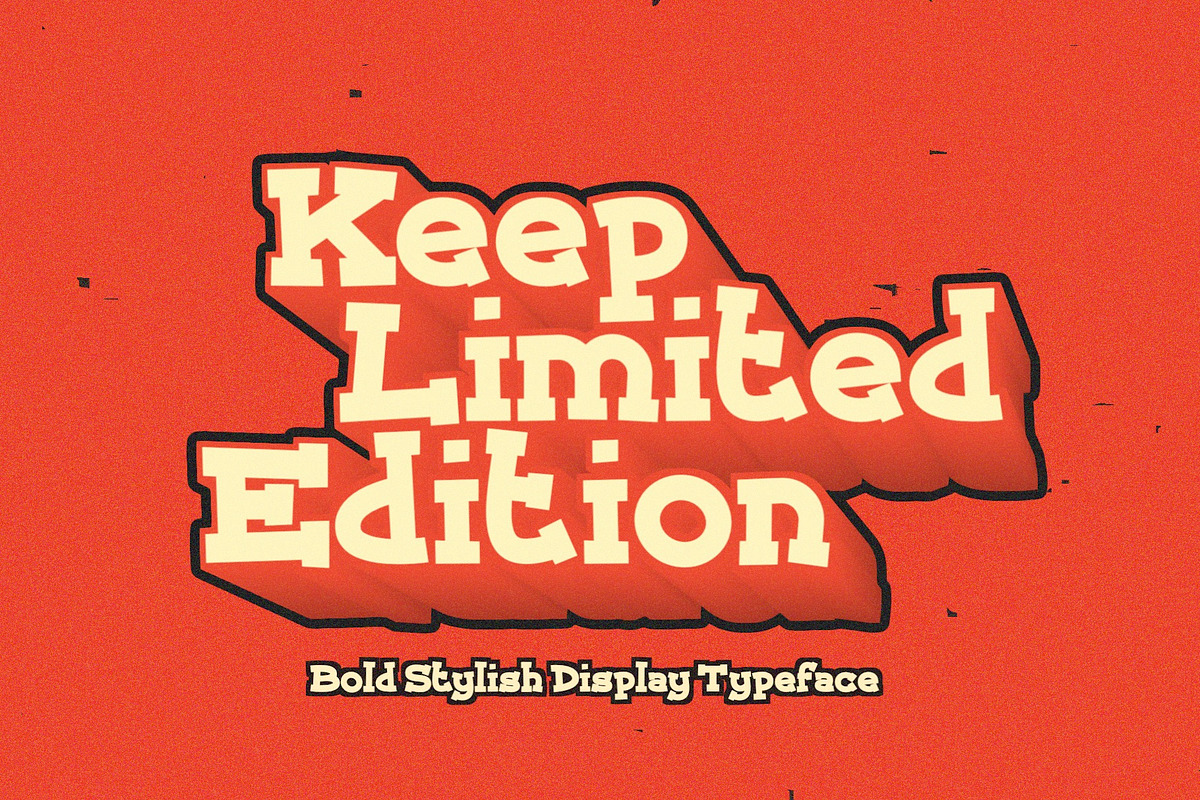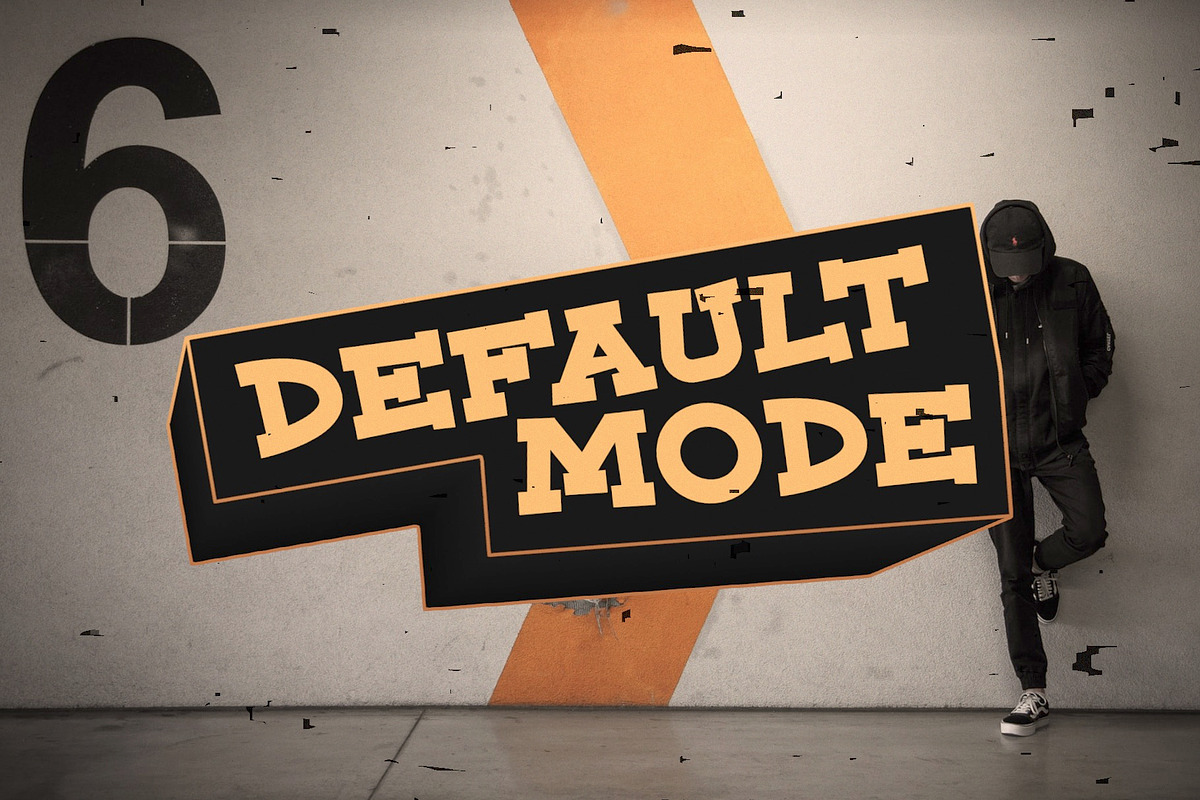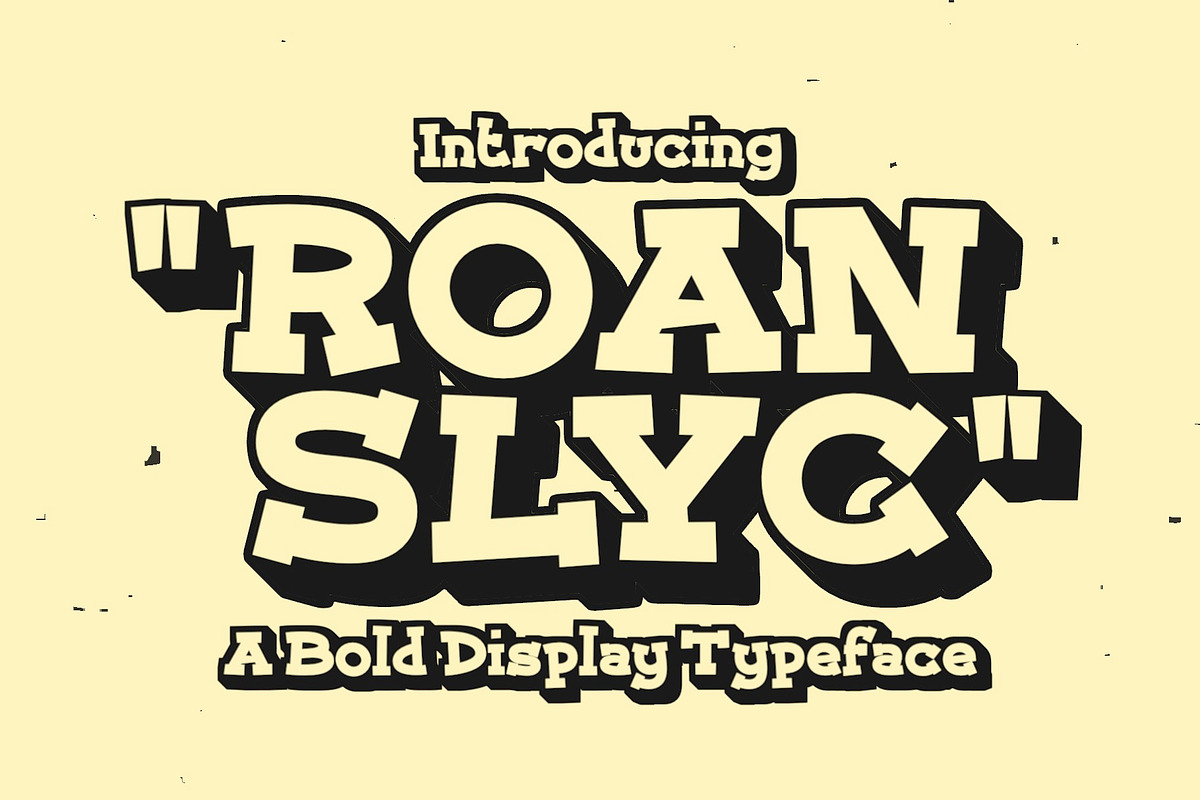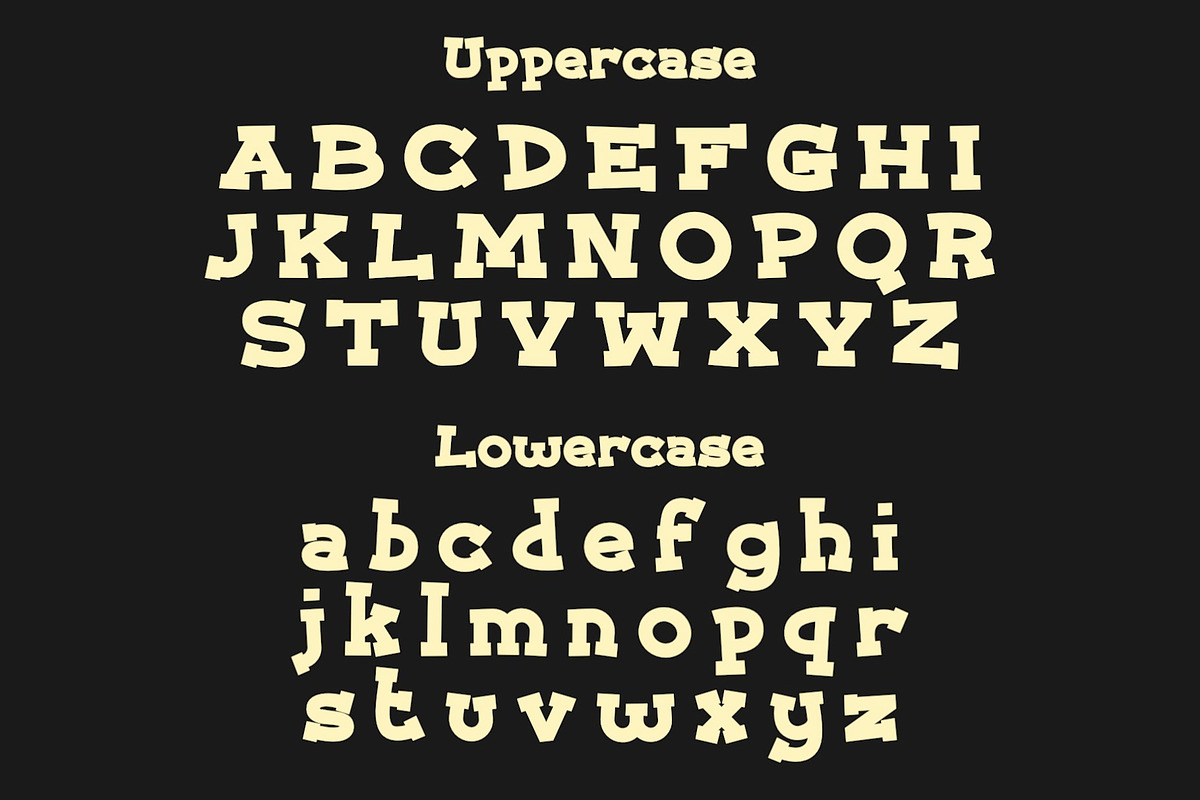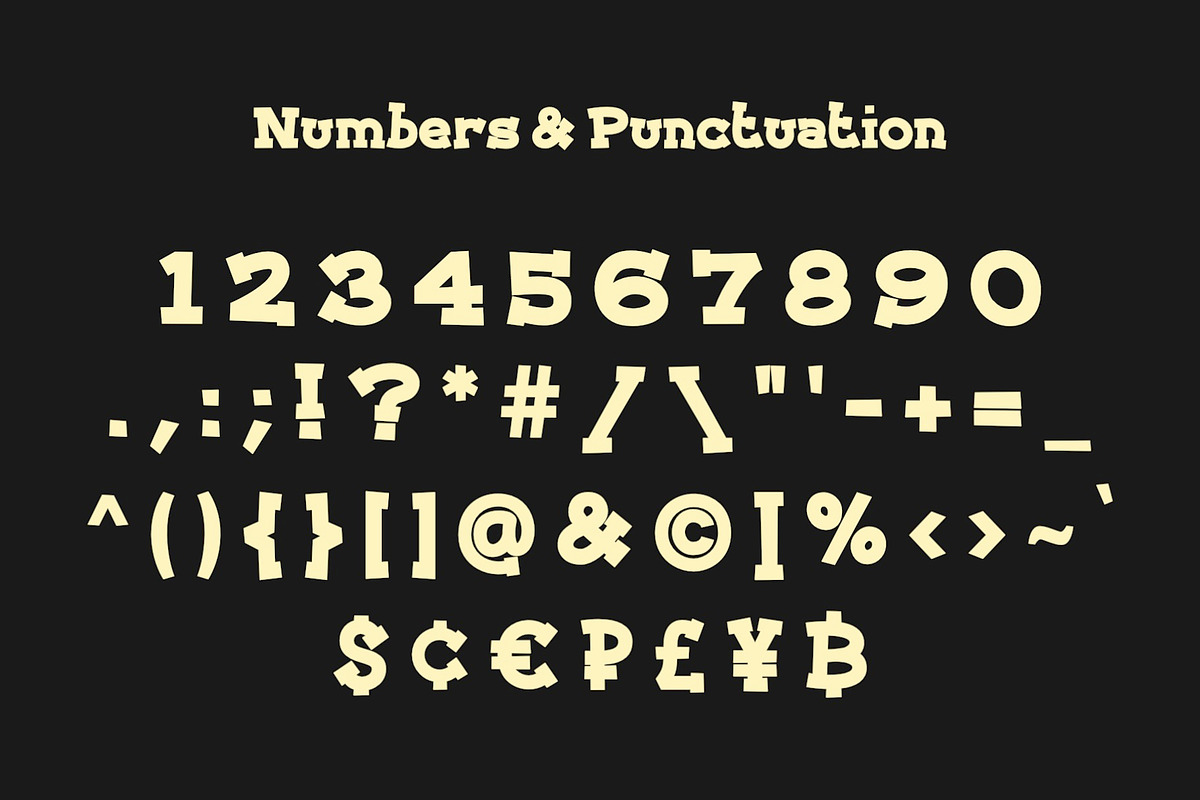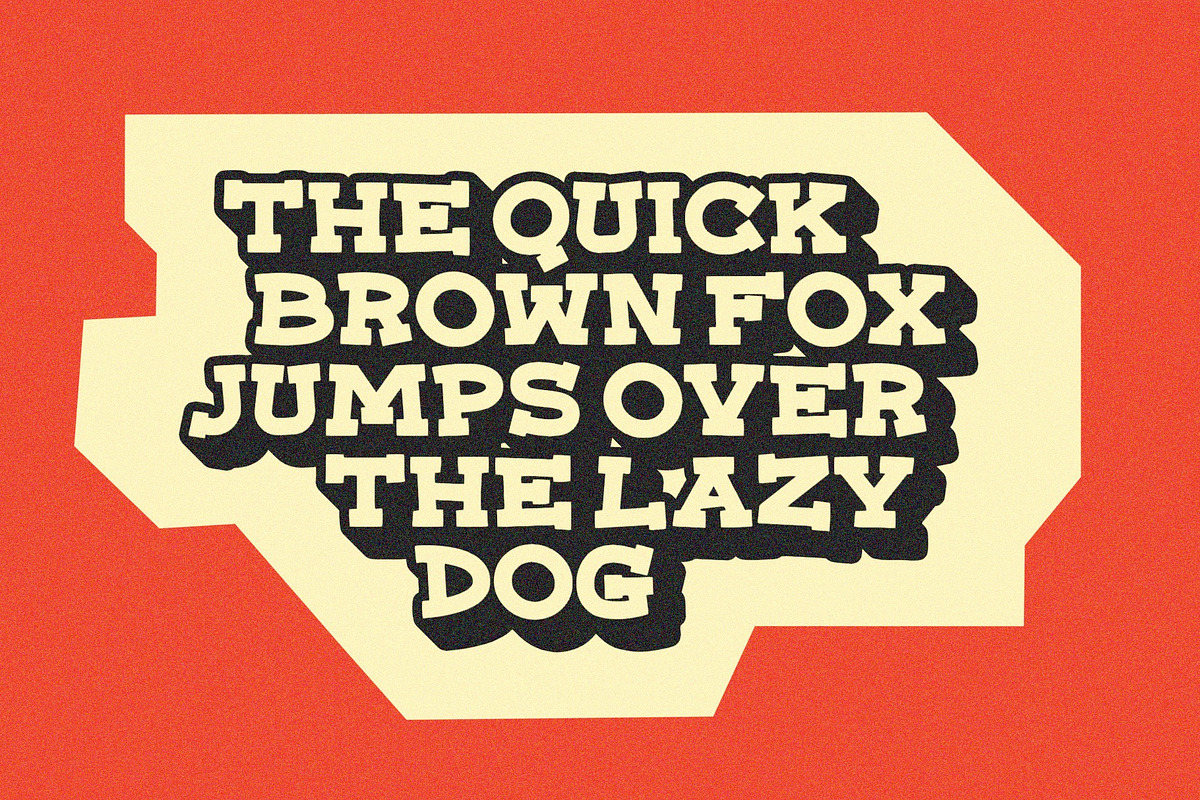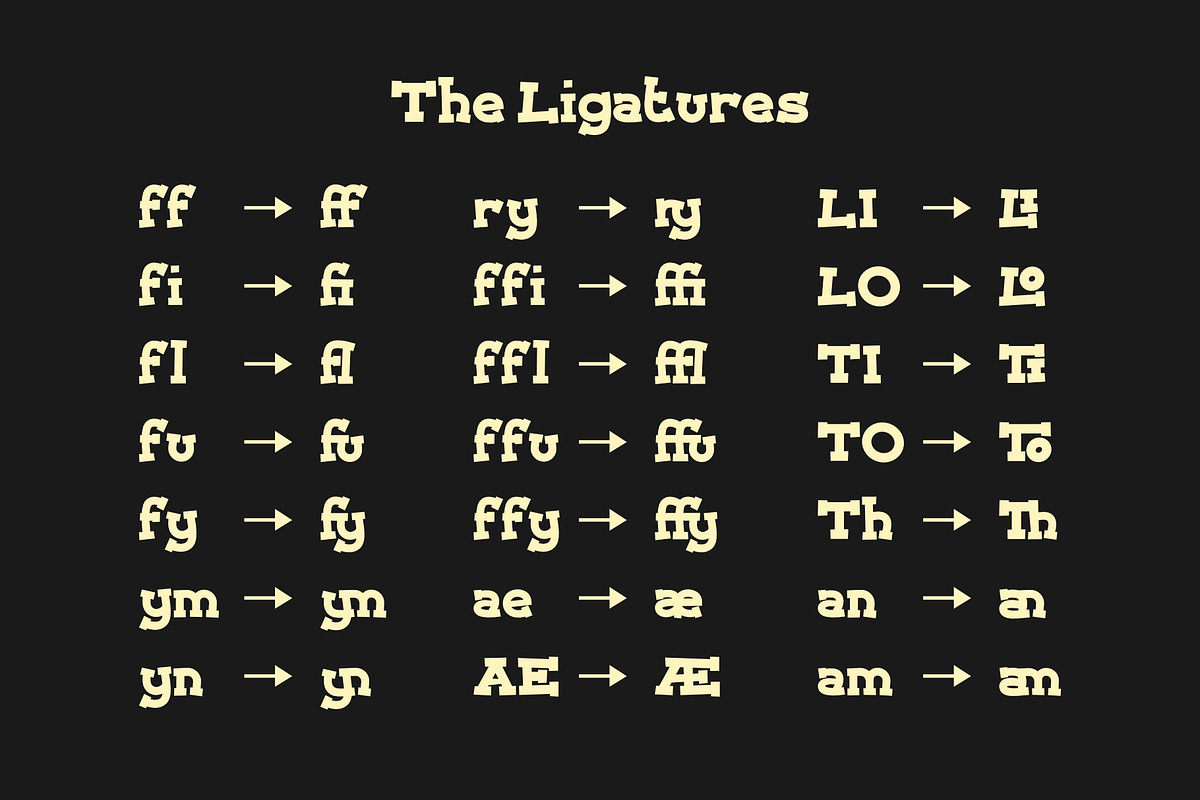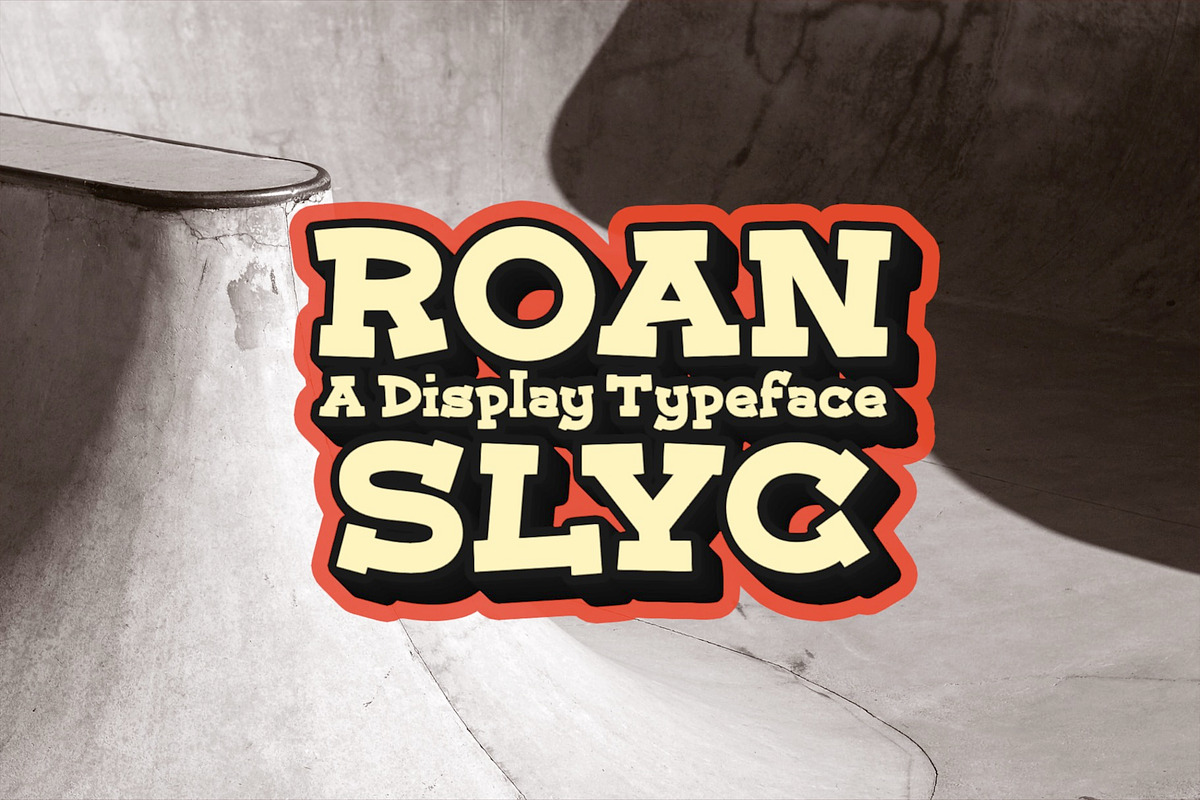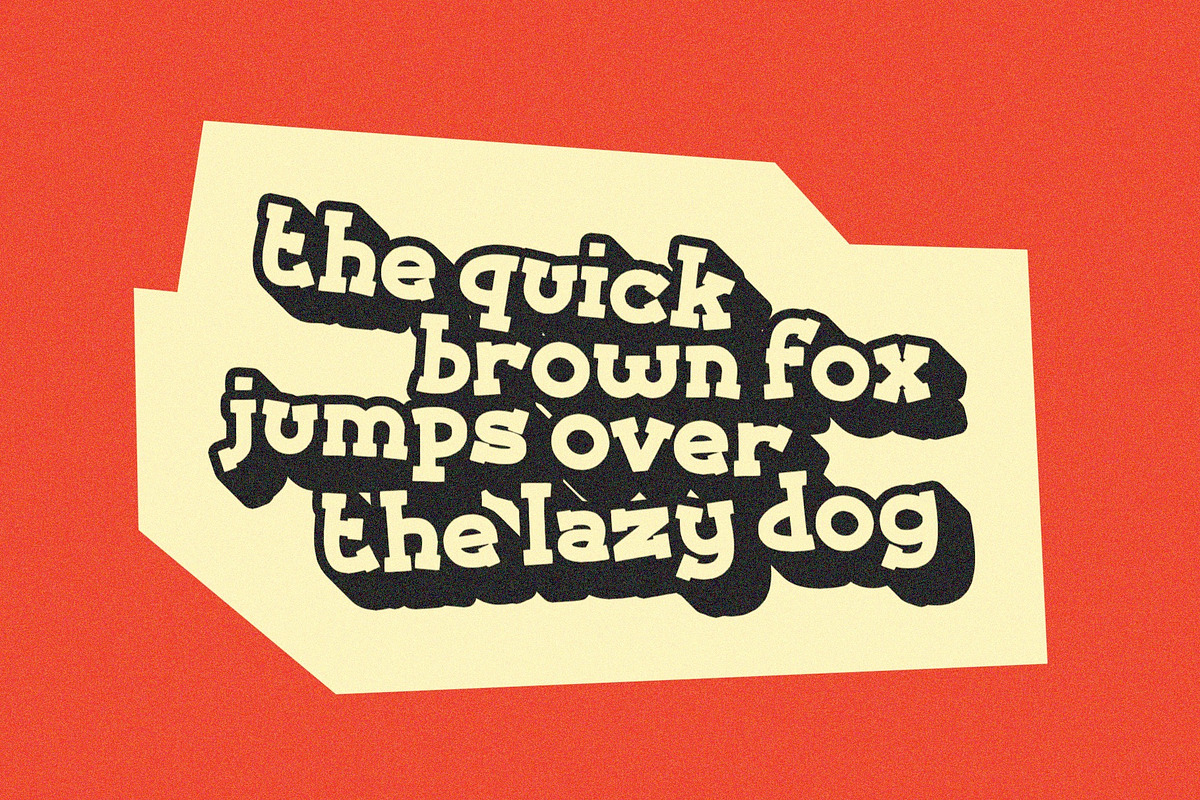
Roan Slyc - Slab Serif Typeface
Roan Slyc — a rugged slab serif with roots in retro display type and the grit of hand-lettering. Bold, imperfect, and full of character, it brings warmth and weight to any project that needs a strong voice.
Enable discretionary ligatures (dlig) to unlock 21 custom letter pairs that give your text a more organic, hand-drawn feel. Full punctuation and currency symbols are also part of the set.
Use it for posters · logos · headlines · apparel · packaging · branding